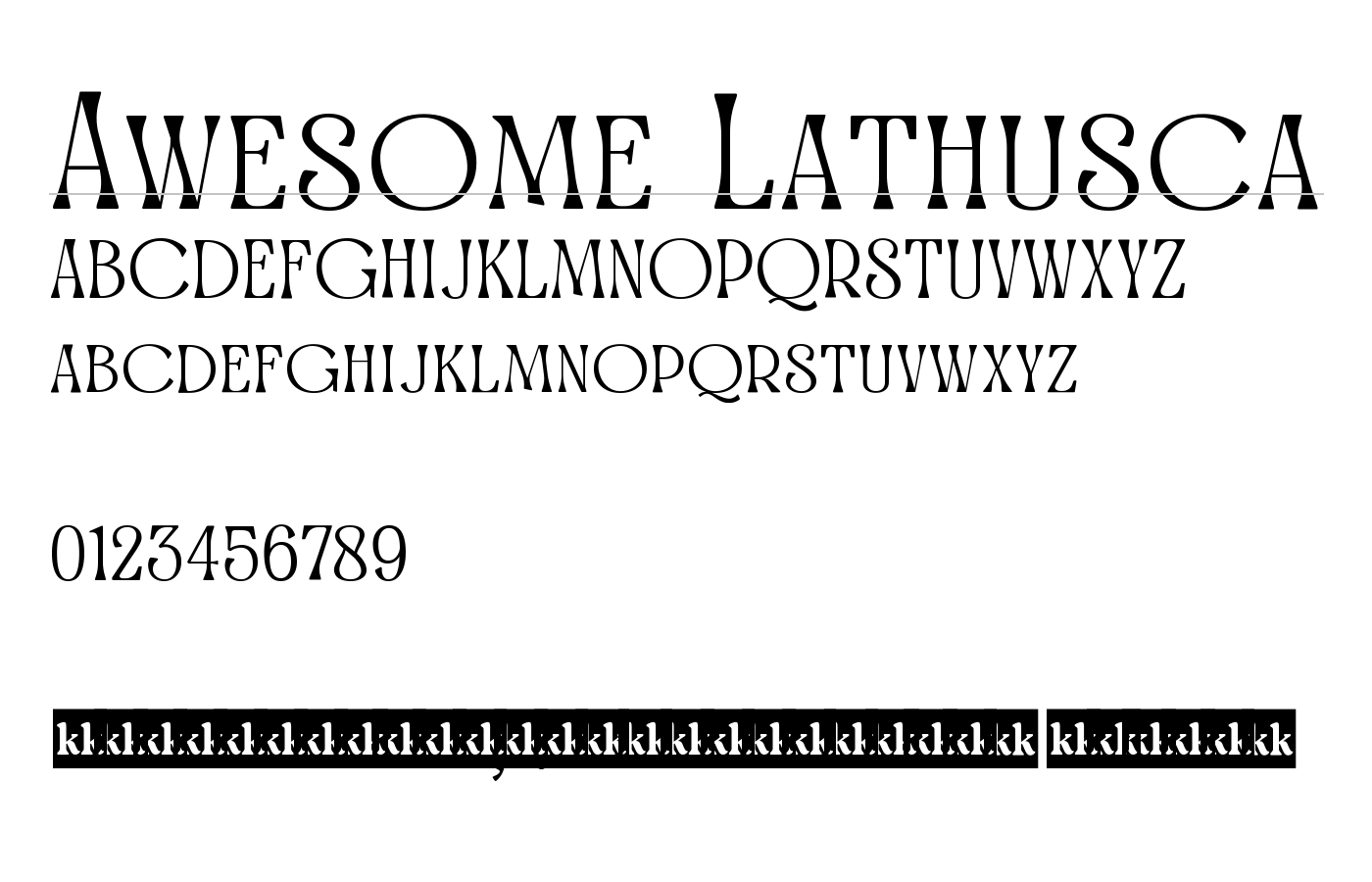
Awesome Lathusca is a distinctive serif font characterized by its tall, narrow letterforms and elegant high contrast between thick and thin strokes. The font’s delicate, sharply bracketed serifs combined with unique, slightly whimsical details give it a vintage yet refined feel, making it ideal for fashion branding, editorial headlines, and stylish logos that require a sophisticated but memorable look. Its narrow width and strong personality lend well to designs where space is limited but impact is needed.
Awesome Lathusca Font
About Awesome Lathusca Font
| Font family | Awesome Lathusca Font |
| Designer | M Arif Dwi Prasetyo & Eko Nurcahyo |